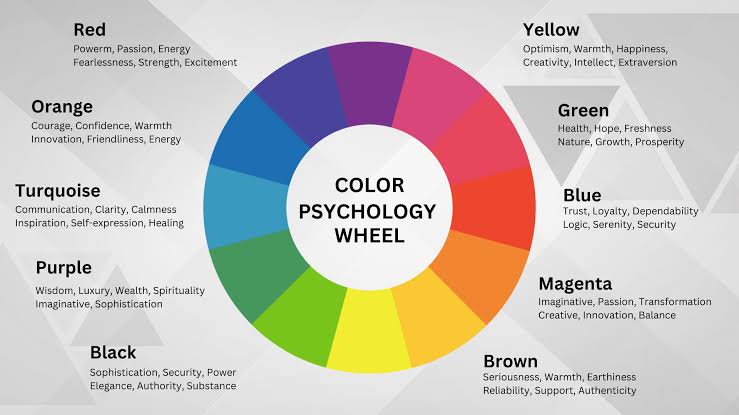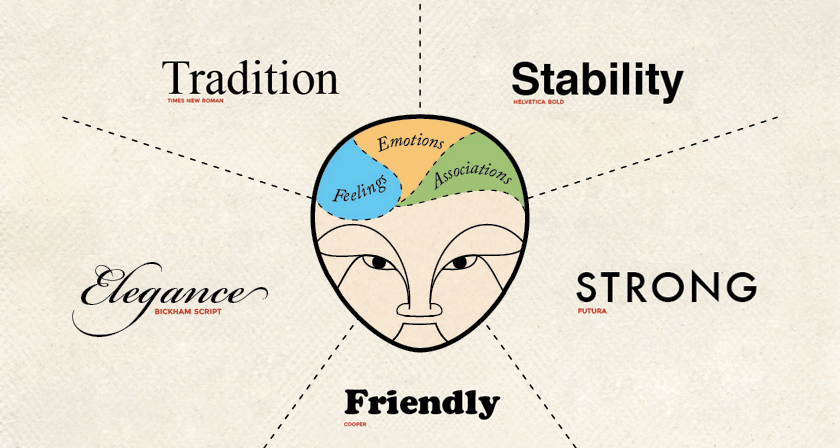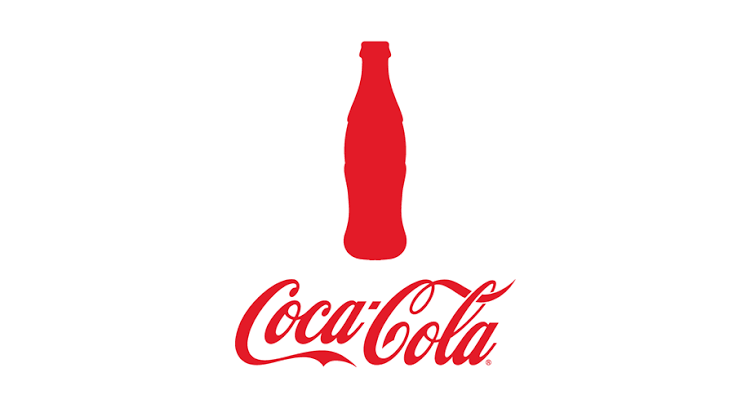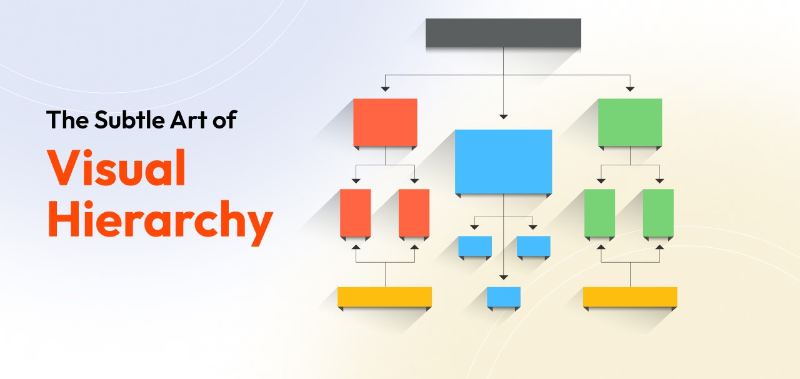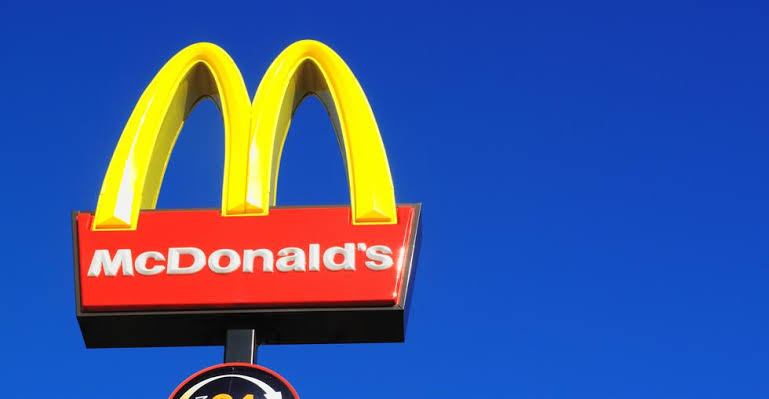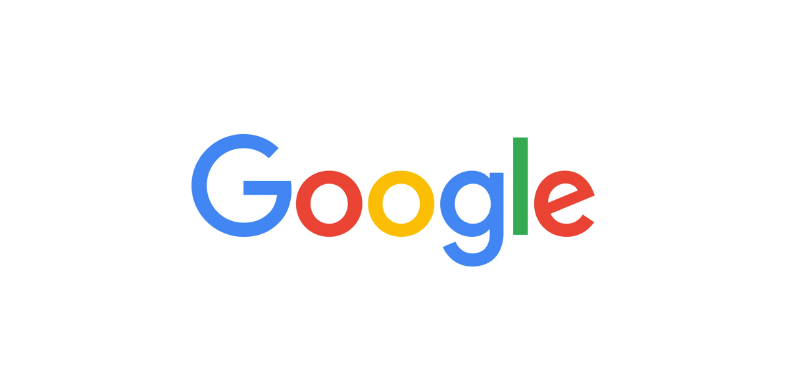
What Is the Primary Goal of Branding in Graphic Design?
Some brands are instantly recognizable the moment you see their colors, logo, or typography, while others fade from memory just as quickly. That contrast raises an important question: what is the primary goal of branding in graphic design? To answer, keep reading to see how design turns a ‘meh’ brand into a ‘must-have’ experience.
Key Takeaways
• The primary goal of branding in graphic design is to shape perception through a clear and consistent visual identity.
• Strong visual systems build differentiation, trust, and long-term brand recognition.
• Strategic use of color, typography, logos, and layout strengthens emotional connection and brand loyalty.
A Glimpse of Branding in Graphic Design
Before jumping into what is the primary goal of branding in graphic design, it is important to understand that branding is the strategic process of shaping perception. While marketing aims to sell, branding aims to define by creating an identity, a voice, and a sense of emotional meaning.
This process operates on a psychological level, influencing how an audience feels before they ever engage with a product. These subconscious impressions, whether of luxury, trust, or innovation, form in an instant. Strong branding ensures that these gut feelings match the company’s intended reality.
Ultimately, graphic design is making every strategy visible. By translating brand values into a coherent system of color, type, and imagery, it sends an immediate signal of professionalism.
What Is the Primary Goal of Branding in Graphic Design?
To truly understand the primary goal of branding in graphic design, we must look at its deeper strategic intent. This foundation is built upon the 4 pillars of branding in graphic design, which guide every visual decision a designer makes. Here are the details!
1. Creating Strong Brand Differentiation
In saturated markets, visual similarity makes brands interchangeable. Strong branding builds uniqueness through distinctive typography, proprietary colors, and consistent visual language. Clear differentiation reduces confusion. When done well, audiences recognize a brand instantly without reading its name.
2. Building Perception and Trust
Studies found that design typically shapes first impressions within 5 seconds. Clean layouts, professional typography, and consistency signal credibility and reliability. Meanwhile, poor or inconsistent design creates doubt, even when product quality is high.
3. Strengthening Audience Memory
Recognition builds familiarity, and familiarity drives preference. Consistent visual elements strengthen memory associations over time. Colors, shapes, and typography become brand triggers. Stable visual systems across platforms improve recall and long-term recognition.
4. Establishing Long-Term Emotional Connection
Beyond logic, people connect with brands that reflect their values and identity. Strategic branding evokes feelings such as confidence, excitement, nostalgia, or aspiration. When audiences emotionally attach to a brand, they move from customers to advocates. This is where branding shifts from transactional to relational.
Key Visual Elements That Support Branding Goals
To achieve the purpose of branding in graphic design, designers rely on foundational systems as follows.
1. Color Psychology
Color Psychology Wheel
Colors shape perception subconsciously. For example, blue signals trust, red energy, black sophistication. Strategic color choices reflect brand positioning and audience expectations. Consistency across platforms strengthens recognition. Even slight shade changes can weaken identity without clear guidelines.
2. Typography as Brand Personality
Typography Psychology
Typography Psychology | Source: vamosdigital.in
Typography defines brand tone. For instance, serif feels traditional, sans-serif modern, script elegant or creative. Font choice shapes how messages are perceived, and consistent typography across platforms builds cohesion. This strong system boosts professionalism and memorability.
3. Logo Design and Symbolism
Logos act as compact brand signatures. Effective logos are simple, scalable, and adaptable for digital and print use. This is a sign that simplicity improves recognition and recall.
4. Layout and Visual Hierarchy
Visual Hierarchy
Visual Hierarchy | Source: LinkedIn – Ascent Spark
Layout guides how information is processed. Clear hierarchy directs attention and improves readability. Spacing, alignment, and contrast enhance user experience. With strong structure, professionalism and communication clarity can be achieved.
5 Global Brands That Successfully Achieve This Goal
To better understand graphic design branding examples, consider the following brands that consistently demonstrate strong differentiation, trust, and memorability.
1. Apple
Apple's Minimalist Design
Apple’s Minimalist Design | Source: Medium – Data Driven Investor
Apple’s minimalist design language reflects innovation and premium quality. Its consistent typography and product aesthetics reinforce a clean, sophisticated identity.
2. Nike
Nike Shoes with Swoosh Logo
Nike Shoes with Swoosh Logo | Source: creativebloq.com
Nike uses bold visuals and dynamic layouts to communicate energy and movement. The iconic Swoosh ensures immediate recognition.
3. Coca-Cola
Coca-Cola Logo Typography
Coca-Cola Logo Typography | Source: allvectorlogo.com
Coca-Cola’s timeless script typography and consistent red color palette create multi-generational brand recall.
4. McDonald’s
McDonald's Logo
McDonald’s Logo | Source: businessforsale.co.za
The Golden Arches and red-yellow system provide universal consistency and instant identification worldwide.
5. Google
Google Clean Logo
Google Clean Logo | Source: design.google.com
Google maintains a clean, accessible identity with adaptable yet consistent design principles across platforms.
Create a Visual Identity That Sells for You
In the end, understanding what is the primary goal of branding in graphic design means realizing that branding is about shaping perception, not just visuals. The true objective is to build a clear, consistent identity that audiences can instantly recognize and trust.
Typography is one of many factors that plays a strategic role in delivering that identity across every touchpoint. When chosen carefully, a typeface becomes the voice and personality of the brand itself.